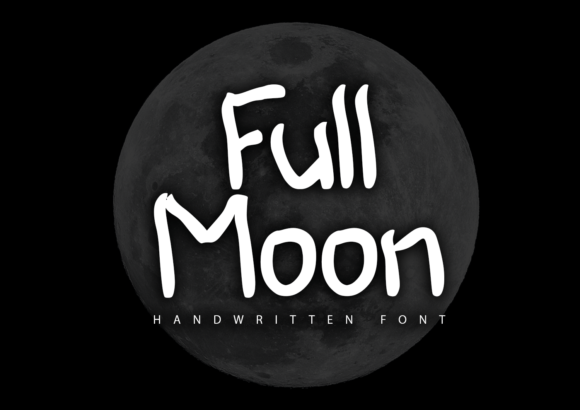
Journey through the captivating world of "Full Moon," a font that embodies the allure of the night sky. Unveil the magic of this extraordinary script, crafted to bring a touch of mystery and intrigue to your creative projects.
Immerse yourself in the elegance of Full Moon, a meticulously designed handwritten font. Each stroke and curve is a testament to the artistry and passion poured into its creation. Discover the boundless possibilities that await you with this font, perfect for conjuring a sense of enchantment in your designs.
From branding to posters, apparel to merchandise, and stickers to signage, Full Moon is the ultimate choice for adding a touch of distinctiveness to your creations. Let your imagination soar as you explore the versatility of this font, seamlessly adapting to a multitude of styles and themes.
Unleash the power of self-expression with Full Moon. Let your designs speak volumes, captivating your audience with its alluring charm. Embrace the beauty of handwritten typography and make a statement that resonates with originality and flair.
Step into the realm of Full Moon and unlock the door to creativity. Experience the magic of a font that transcends the ordinary, leaving an unforgettable mark on all who encounter it.